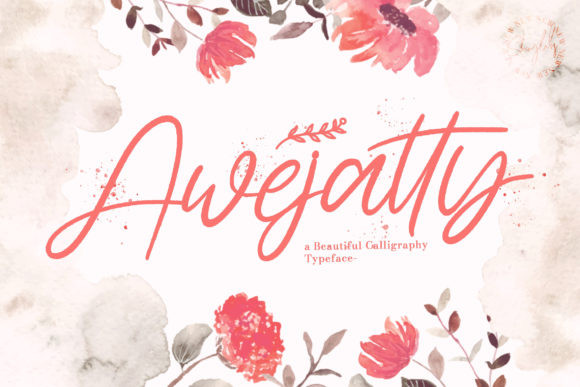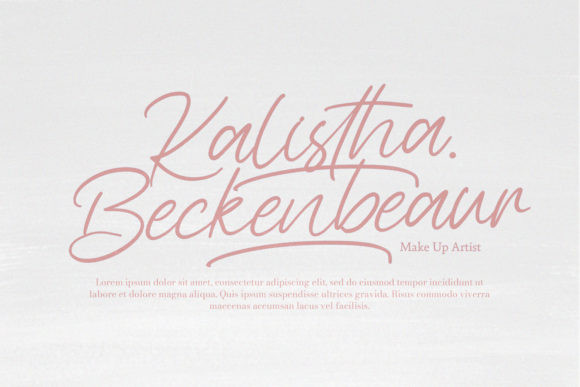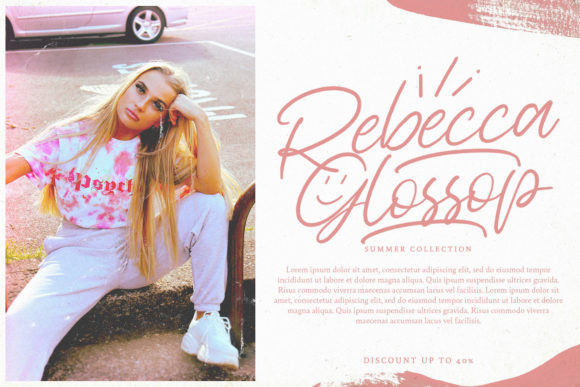
Awejatty Font
Awejatty is a chic, refined script font that emanates sophistication and elegance. It’s stylish alternates and ligatures make this font the perfect match for any project.